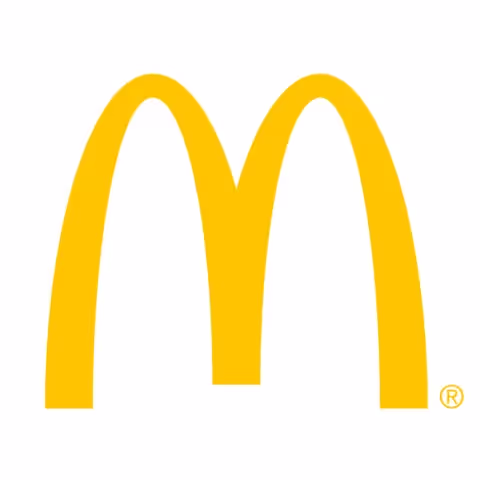
McDonald's Font
Mclawsuit
Community Designed
This font is not used for "McDonald's Font", but this is the font that the community have designed based on the logo.
The McDonald's logo font is Mclawsuit. McDonald's Corporation is an American fast food company founded in 1940 by Richard and Maurice McDonald in San Bernardino, California. It has grown into one of the most recognized restaurant brands worldwide. The McDonald's logo font, Mclawsuit, is a custom display typeface created for the brand’s identity. The bold, rounded letterforms and distinctive curves give the McDonald's logo font a friendly, accessible appearance that supports its global fast food branding.